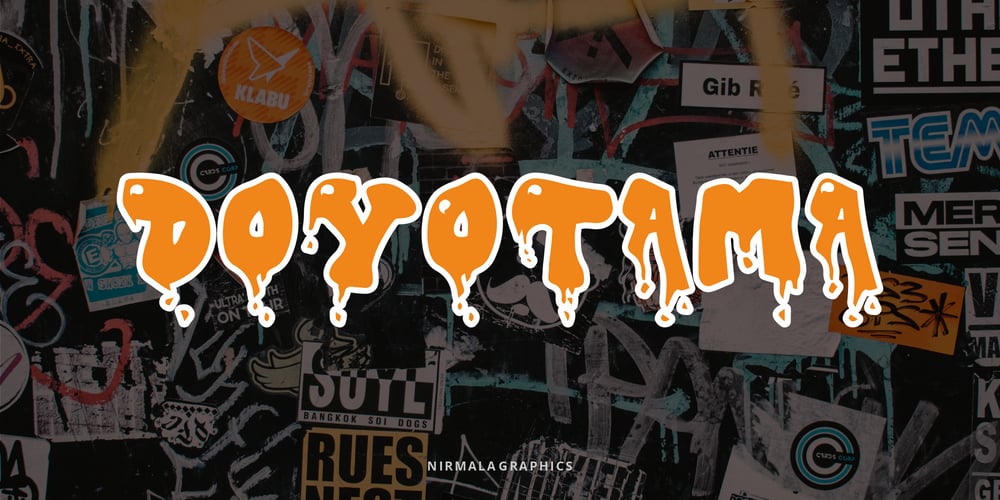
Doyotama
Doyotama font
Doyotama Font Family was designed by Andrea Zudip Aggasi and published by Nirmalagraphics. Doyotama contains 1 styles and family package options. Doyotama is my first font that I created in a graffiti style. the font that I made with a sketch with a ballpoint pen then I became the font as it is now.In this font, uppercase and lowercase letters are the same, the only difference is the size.You can use this font for all your needs, such as drawing posters, murals or logosDon’t forget to give Feedback after buying my product, thank you very much,Nirmala